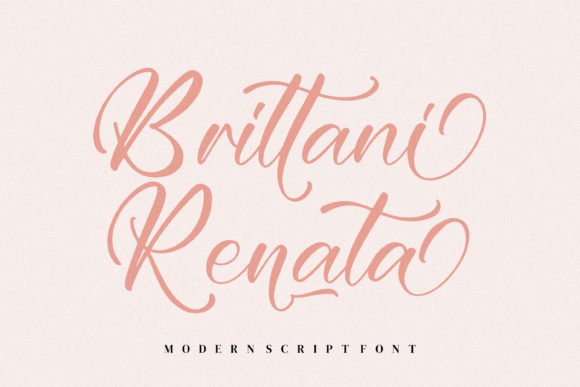
Introduction to Brittani Renata Font
Brittani Renata is a premium and modern script font, suitable for any projects such as logos, branding projects, homeware designs, product packaging, mugs, quotes, posters, shopping bags, t-shirts, book covers, name cards, invitation cards, greeting cards, label, photography, watermark, special events, and all your other luxury projects that need a premium signature taste.
Key Features of Brittani Renata Font